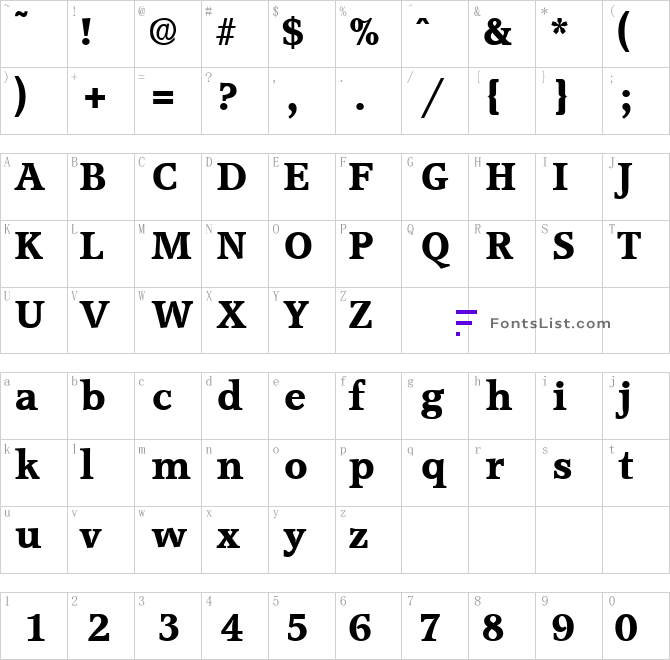
Accolade-Bold.ttf is a very beautiful artistic font, Accolade-Bold.ttf is widely used in the design and printing of various books and pictures,Accolade-Bold.ttf has a strong visual impact,Accolade-Bold.ttf is a commonly used font in newspapers, magazines and books, and is used in posters, e-commerce Poster design, store design, logo design, font design and other fields.Accolade-Bold.